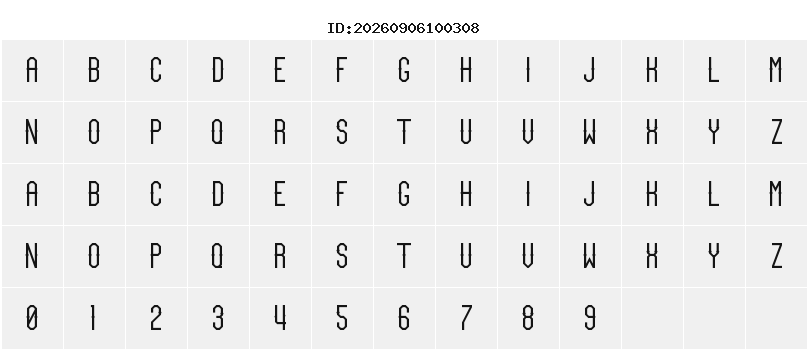
• Designer: Out Of Step Font Company
About Team Captain.ttf
Team Captain.ttf is a modern, elegant sans-serif font designed for ultimate readability and visual harmony. Perfect for branding, headlines, web design, and print materials.